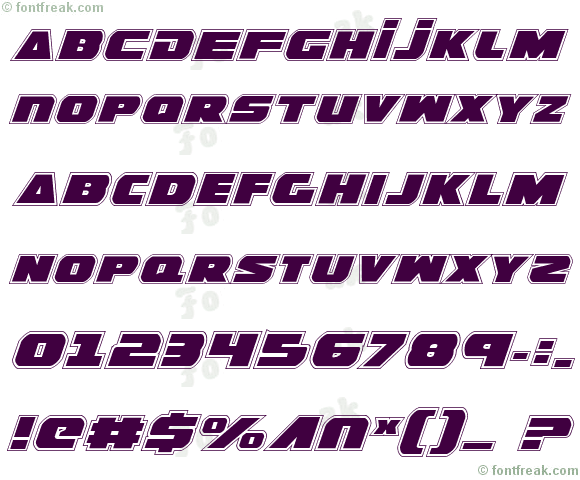
Guardian Shadow Italic
Guardian Shadow Italic, designed by Daniel Zadorozny in 2008, is a striking display font that falls within the decorative category. Its unique italic style gives it a dynamic appearance, perfect for capturing attention. The font features a bold stroke weight, with pronounced contrasts that enhance its shadowed effect. The spacing is well-considered, allowing for clarity even in larger displays, while the playful, angled lines add a sense of motion and excitement to your designs.
This font is particularly well-suited for a variety of use cases. It can elevate movie posters, lending a dramatic flair that captures the essence of action and adventure. Additionally, Guardian Shadow Italic is ideal for promotional materials such as flyers and banners, where it can draw in customers with its bold presence. It also works beautifully on restaurant menus, providing a fun and engaging look that reflects a lively dining atmosphere. Small business owners can utilize this font to create memorable branding elements, such as logos and product labels, that stand out in a competitive market. Lastly, content creators will find it useful for social media graphics, where eye-catching visuals are crucial for engagement.
The target audience for Guardian Shadow Italic includes graphic designers looking for distinctive display options, small business owners aiming for standout branding, and content creators seeking visually appealing typography. The Guardian Shadow Italic font free download offers an accessible opportunity for anyone wanting to incorporate this unique typeface into their projects.
What sets Guardian Shadow Italic apart is its ability to combine a playful, energetic vibe with professional quality. Its distinctive design makes it a go-to choice for projects that require a bold statement, ensuring your work is both memorable and impactful.